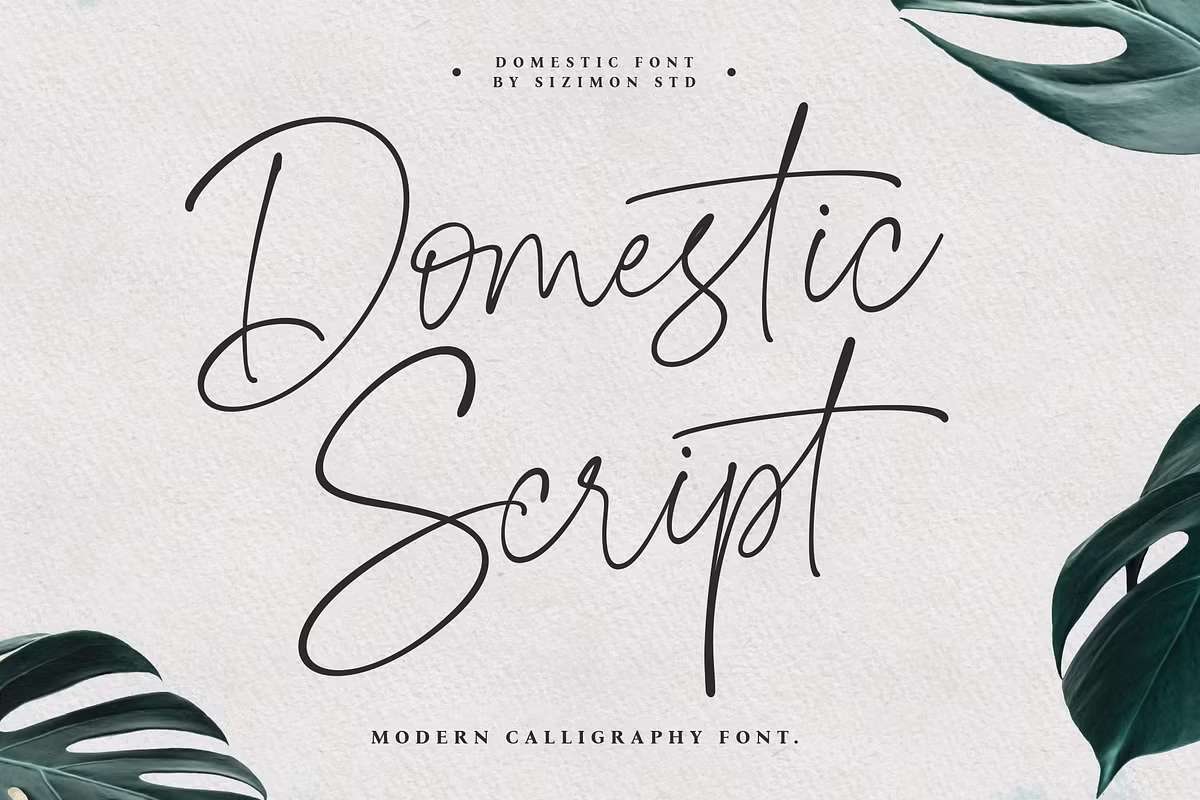
Domestic Script Font Free Download is a charming and friendly handwritten script typeface that combines the warmth of casual handwriting with an elegant flow. Perfect for branding, invitations, social media graphics, logos, and personal stationery, this font brings a personal, approachable touch to any design.
With its smooth, fluid strokes and natural character spacing, Domestic Script Font Free Download offers a balance of elegance and warmth, making it ideal for both creative and professional projects that need a human, welcoming feel.